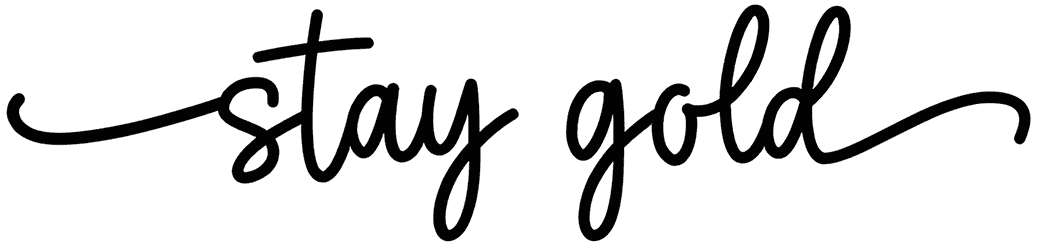
Stay Gold Font
Stay Gold is a lovely, handwritten script font that you may use to provide a youthful vibe to your digital projects. Make your next advertisement, invitation card, or home design project stand out with this font.